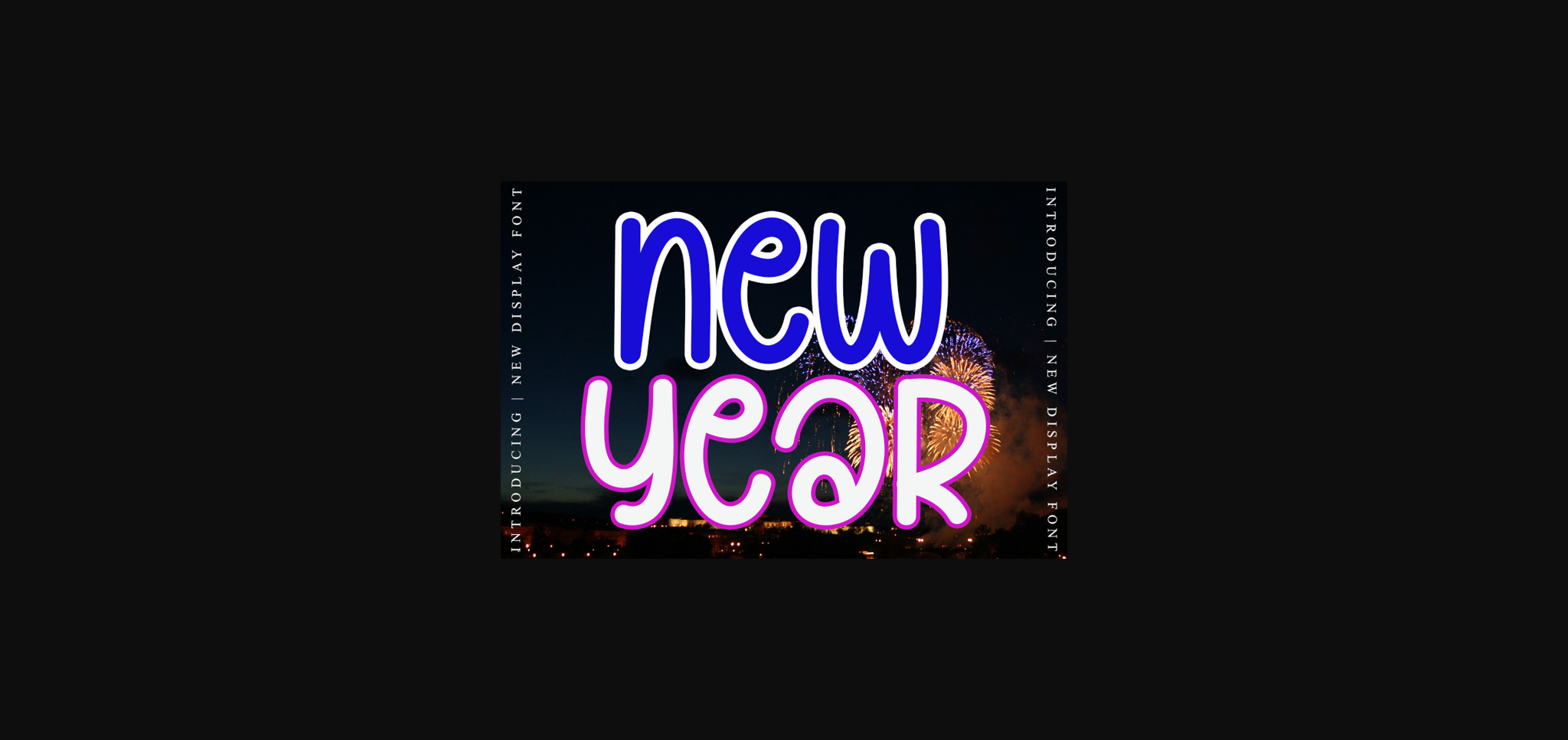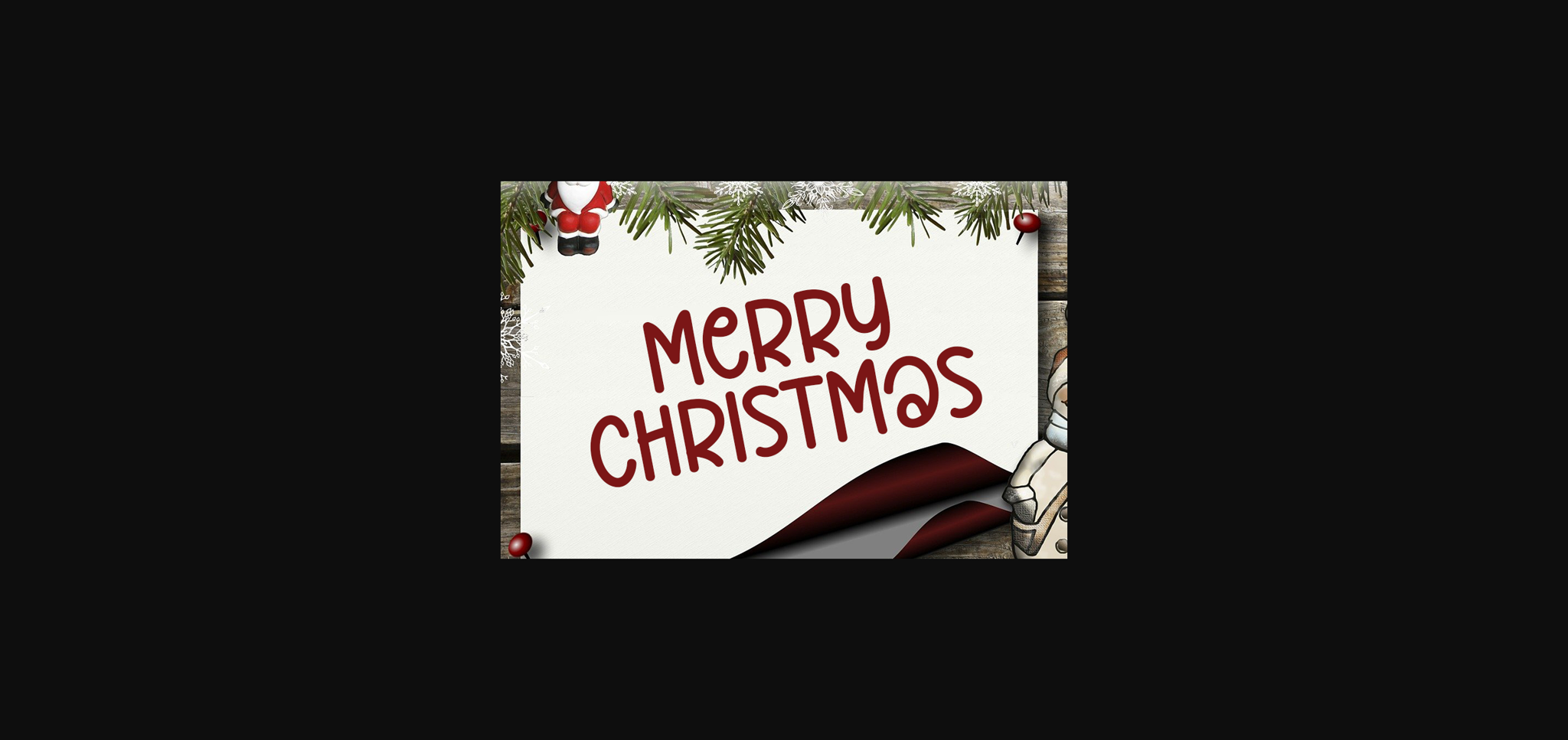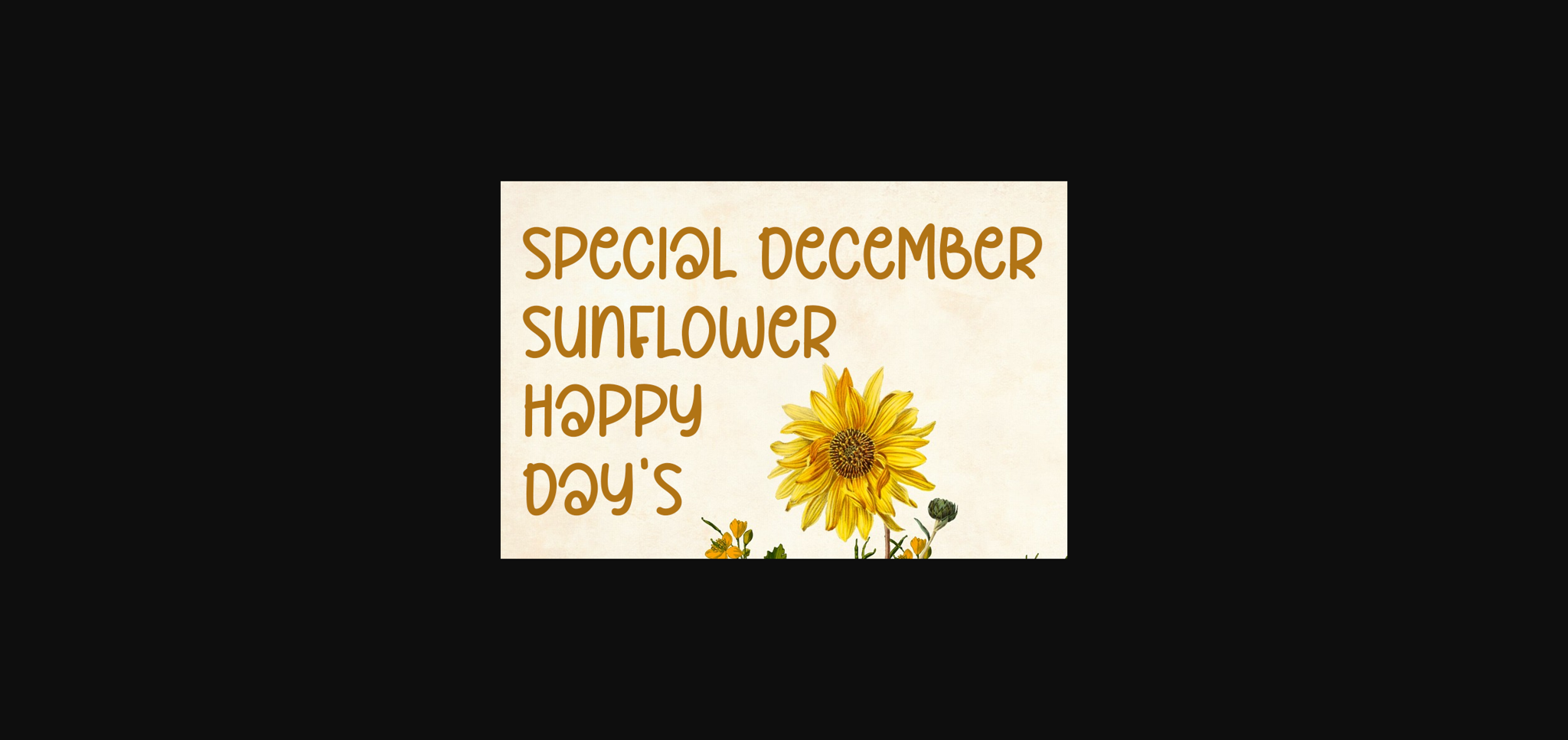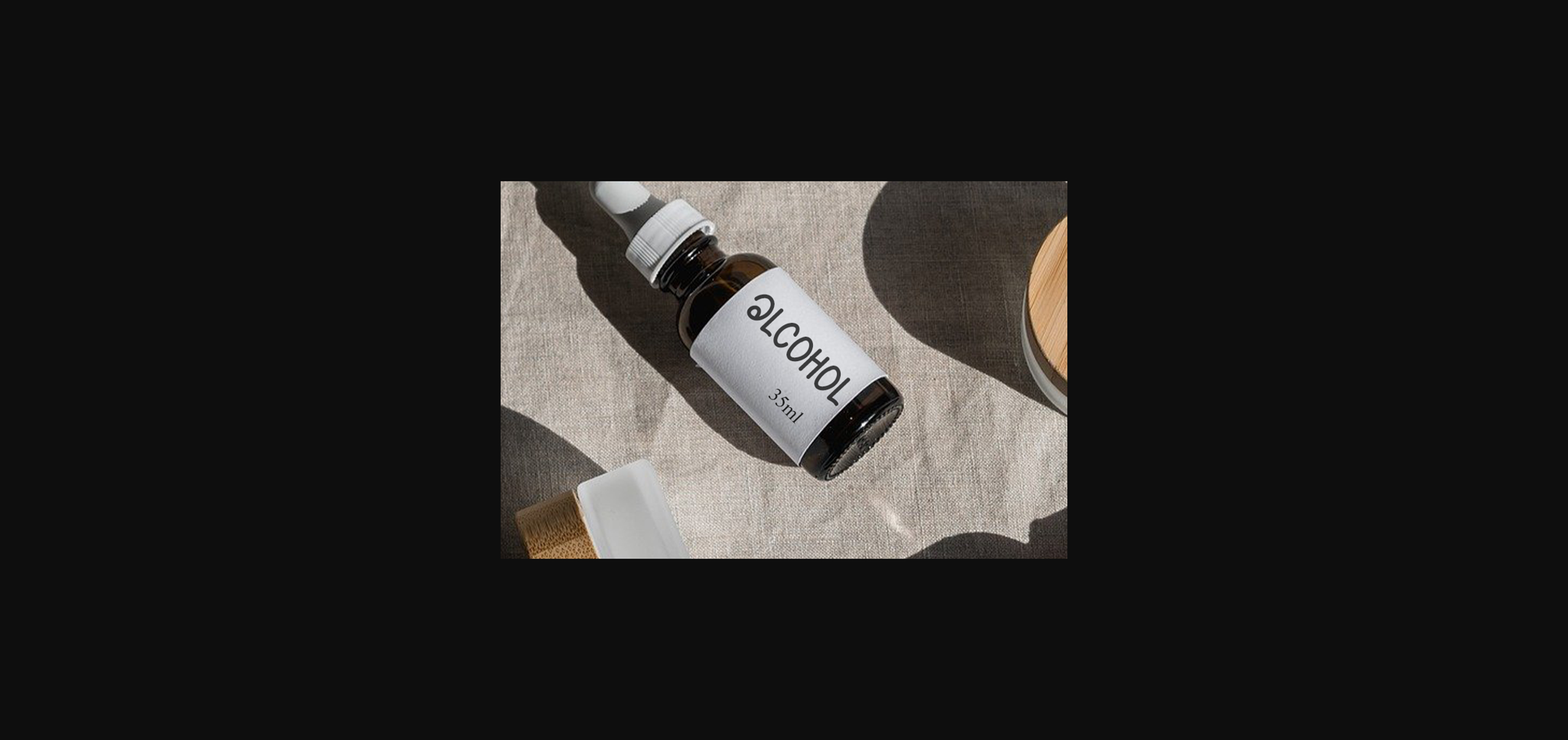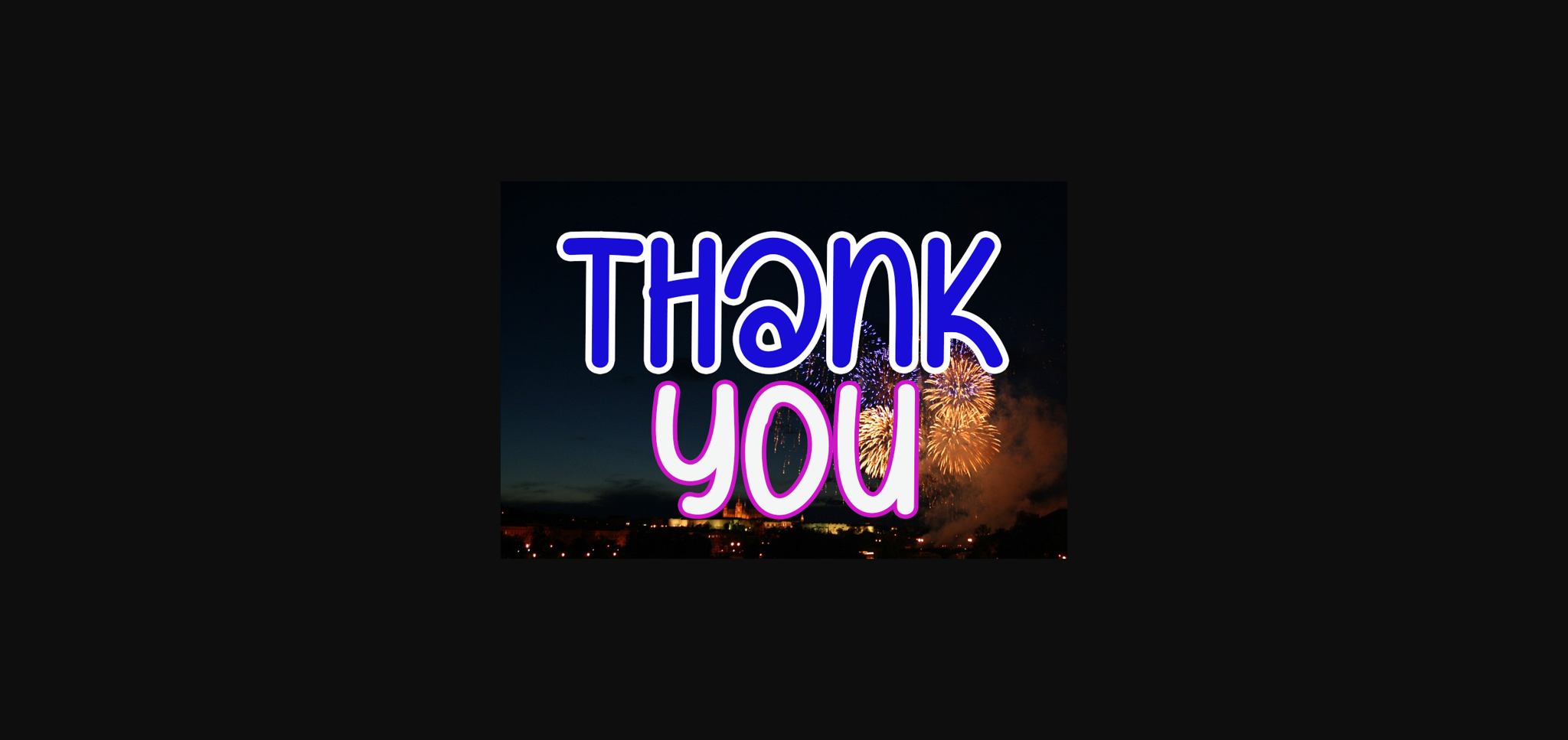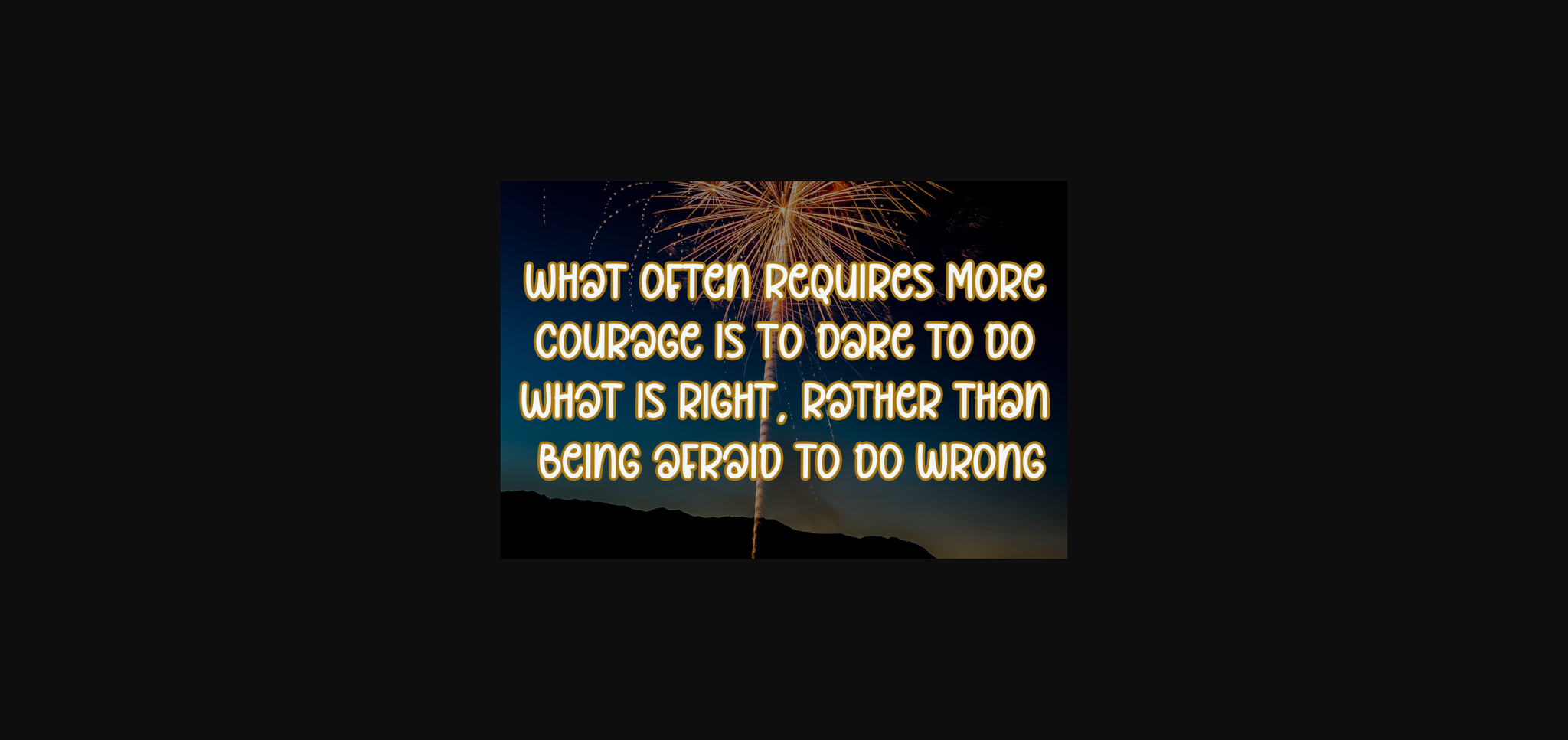
HomeSans Serif FontsNew Year Font Sans Serif Fonts New Year Font FacebookXPinterestWhatsApp 1 of 8 ... New Year Font Poster 2... New Year Font Poster 3... New Year Font Poster 4... New Year Font Poster 5... New Year Font Poster 6... New Year Font Poster 7... New Year Font Poster 8... About New Year Font New Year is a cool and modern sans serif font. Whether you’re using it for crafts, digital design, presentations, or creating greeting cards, this font has the potential to be your go-to font, whatever the occasion. DOWNLOAD NOW People also explored Golden Gate Duo Font Doblier Font Macker Font Samara Lia Font Magliette Font Mojokerto Font Sella Gratia Font Sparrow Font Valhalla Rizer Font 340 0 TagsNew Year Font Previous articleGempore FontNext articleRopinie Font LEAVE A REPLY Cancel reply Comment: Please enter your comment! Name:* Please enter your name here Email:* You have entered an incorrect email address! Please enter your email address here Website: Save my name, email, and website in this browser for the next time I comment. Personal Use Free Omira Personal Use Free Read more about this font Rhetorical Personal Use Free Read more about this font Americana Personal Use Free Read more about this font Advantage Personal Use Free Read more about this font BLOG 5 Fonts That Will Dominate Design Trends in 2026 5 Fonts for 2026 That Will Dominate Design Trends Typography plays a critical role in visual communication, and as we look ahead to 2026, it’s... Modern Sans-Serif Fonts That Brands Love in 2025 Free Fonts Risk: Why Free Fonts Can Be Dangerous for Designers Top 7 Google Fonts Alternatives for Faster and Privacy-Friendly Web Design (2025)